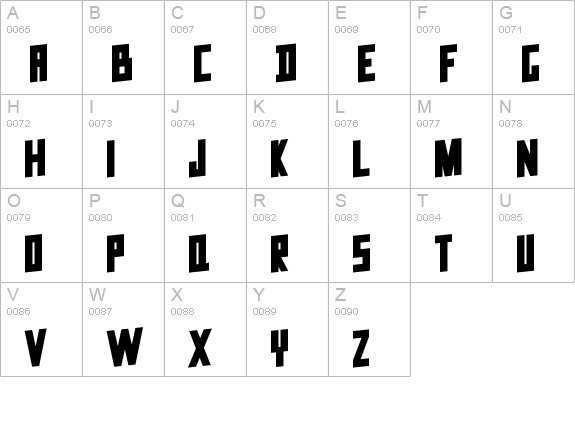
Introducing Data Trash #2 font, a cutting-edge and futuristic typeface that exudes a unique blend of digital aesthetics and modern design sensibilities. Perfect for adding a sleek and tech-inspired touch to your projects, this font features sharp, angular lines and a sleek, minimalist look that is sure to make a statement. Whether you're working on a branding project, website design, or any other creative endeavor, Data Trash #2 font will bring a touch of innovation and sophistication to your work. Best of all, Data Trash #2 font is available for free download at FontsMarket.com. That's right, you can easily access this striking typeface without any cost, making it a valuable addition to your font collection. Don't miss out on the opportunity to elevate your designs with this stylish and contemporary font. Download Data Trash #2 font today and let your creativity shine!